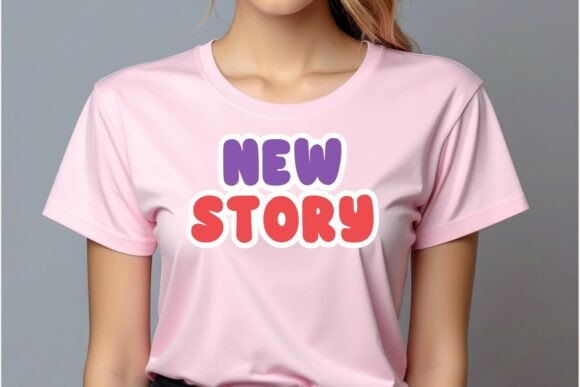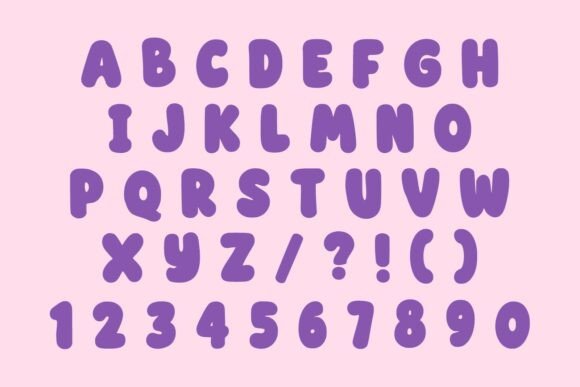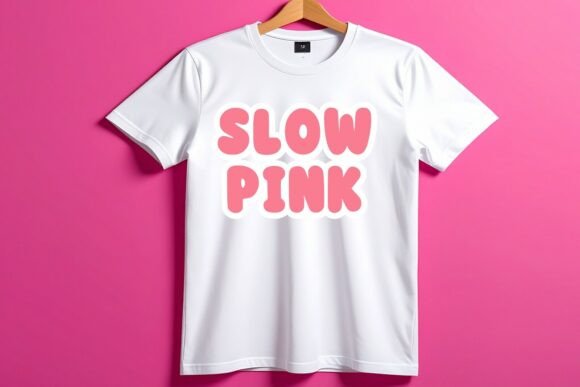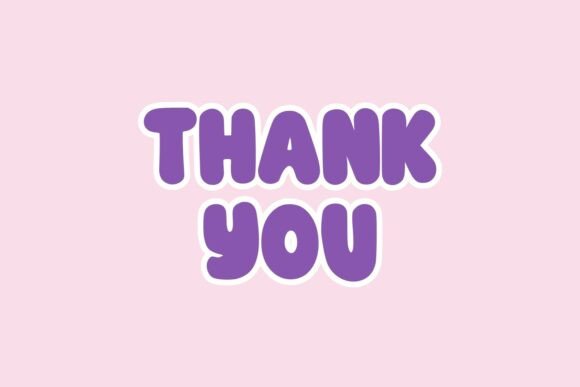
Bubble Lucky Font: The Perfect Choice for Playful and Creative Designs
Are you looking for a font that can add a touch of fun and playfulness to your design projects? Look no further than Bubble Lucky Font! This adorable display font is designed with soft rounded shapes and cheerful colorful characters that are sure to bring a smile to anyone’s face. In this article, we’ll take a closer look at the features and benefits of Bubble Lucky Font, and explore how it can be used to create engaging and effective designs for kids and adults alike.
What is Bubble Lucky Font?
Bubble Lucky Font is a cute and playful display font that is perfect for creating fun and lively designs. Its soft rounded shapes and cheerful colorful characters give it a unique and charming appearance that is sure to capture the attention of your audience. Whether you’re designing for kids or adults, Bubble Lucky Font is an excellent choice for adding a touch of whimsy and playfulness to your projects.
Key Features of Bubble Lucky Font
So, what makes Bubble Lucky Font so special? Here are some of its key features:
- Soft Rounded Shapes: The font features soft rounded shapes that give it a friendly and approachable appearance.
- Cheerful Colorful Characters: The characters in Bubble Lucky Font are designed with bright and cheerful colors that add to its playful vibe.
- Fun and Bubbly Appearance: The font has a fun and bubbly appearance that creates a joyful and energetic feel.
- Perfect for Kids’ Designs: Bubble Lucky Font is ideal for designing for kids, including branding, posters, story books, stickers, and more.
Use Cases for Bubble Lucky Font
Bubble Lucky Font is a versatile font that can be used in a variety of design projects. Here are some use cases where it shines:
- Kids’ Branding: Use Bubble Lucky Font to create fun and engaging branding for kids’ products and services.
- Posters and Flyers: Create eye-catching posters and flyers for kids’ events and activities.
- Story Books and eBooks: Use Bubble Lucky Font to create engaging and interactive story books and eBooks for kids.
- Stickers and Decals: Design fun and colorful stickers and decals for kids using Bubble Lucky Font.
- Invitations and Party Decor: Use the font to create playful and festive invitations and party decor.
- Packaging and Labeling: Add a touch of fun and playfulness to your product packaging and labeling.
- Social Media Graphics: Create engaging and shareable social media graphics for kids’ brands and products.
- Classroom Materials: Use Bubble Lucky Font to create fun and interactive classroom materials, such as worksheets and activity sheets.
Benefits of Using Bubble Lucky Font
So, why should you choose Bubble Lucky Font for your design projects? Here are some benefits of using this font:
- Adds a Touch of Whimsy: Bubble Lucky Font adds a touch of whimsy and playfulness to any design project.
- Engages Your Audience: The font’s fun and bubbly appearance is sure to engage and captivate your audience.
- Perfect for Kids’ Designs: Bubble Lucky Font is specifically designed for kids’ designs, making it an excellent choice for branding, marketing, and educational materials.
- Easy to Read: The font is easy to read, even in smaller sizes, making it perfect for a variety of design applications.
In conclusion, Bubble Lucky Font is a fun and playful display font that is perfect for adding a touch of whimsy and playfulness to your design projects. Its soft rounded shapes, cheerful colorful characters, and fun and bubbly appearance make it an excellent choice for kids’ designs, branding, marketing materials, and more. Whether you’re a designer, crafter, or DIY enthusiast, Bubble Lucky Font is sure to bring a smile to your face and engage your audience.